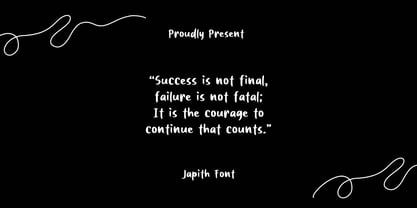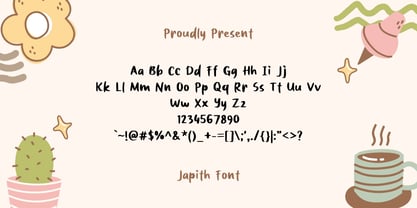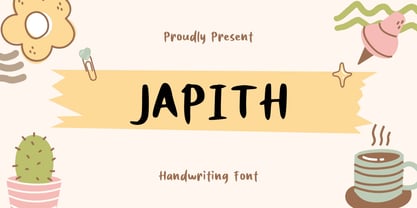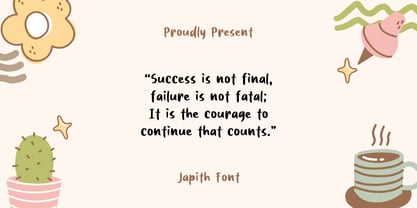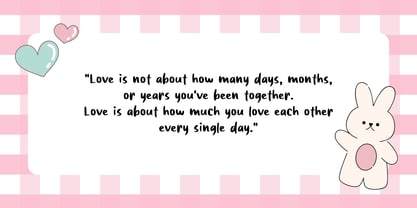
Japith
by Sidkia Fonts
The Japith Font Family was designed by and published by Sidkia Fonts. Japith contains 1 styles. More about this family
Japith Font is a cute and casual handwritten typeface that brings a soft, playful vibe to any design. With its rounded shapes and friendly strokes, Japith feels warm and approachable—perfect for love quotes, greeting cards, kids' projects, and kawaii-themed creations. It adds a cozy, hand-drawn feel that makes your message extra heartfelt and personal.